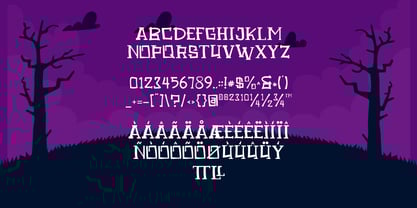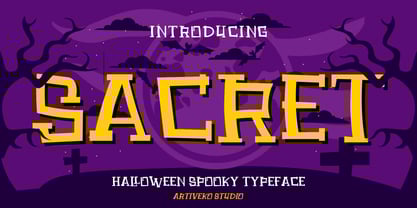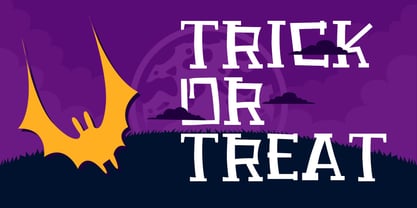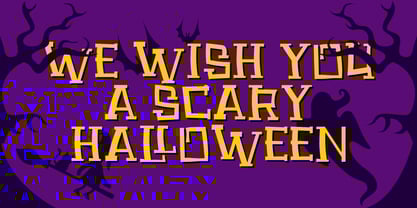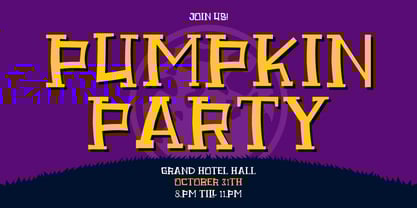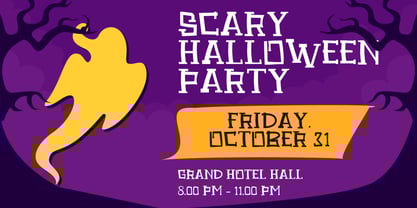
Sacret
by Artiveko
The Sacret Font Family was designed by Iwan Alwan and published by Artiveko. Sacret contains 2 styles and family package options. More about this family
Sacret is a spooky Halloween display font by Iwan Alwan, featuring eerie, dramatic letterforms that evoke mystery and fright. Perfect for Halloween posters, party invitations, themed branding, and decorations, Sacret adds a chilling yet fun atmosphere to your designs. With multilingual support, unique alternates, and hauntingly creative details, Sacret is the ideal choice for projects that embrace the spooky season with bold, unforgettable style.
Designers: Iwan Alwan
Foundry: Artiveko